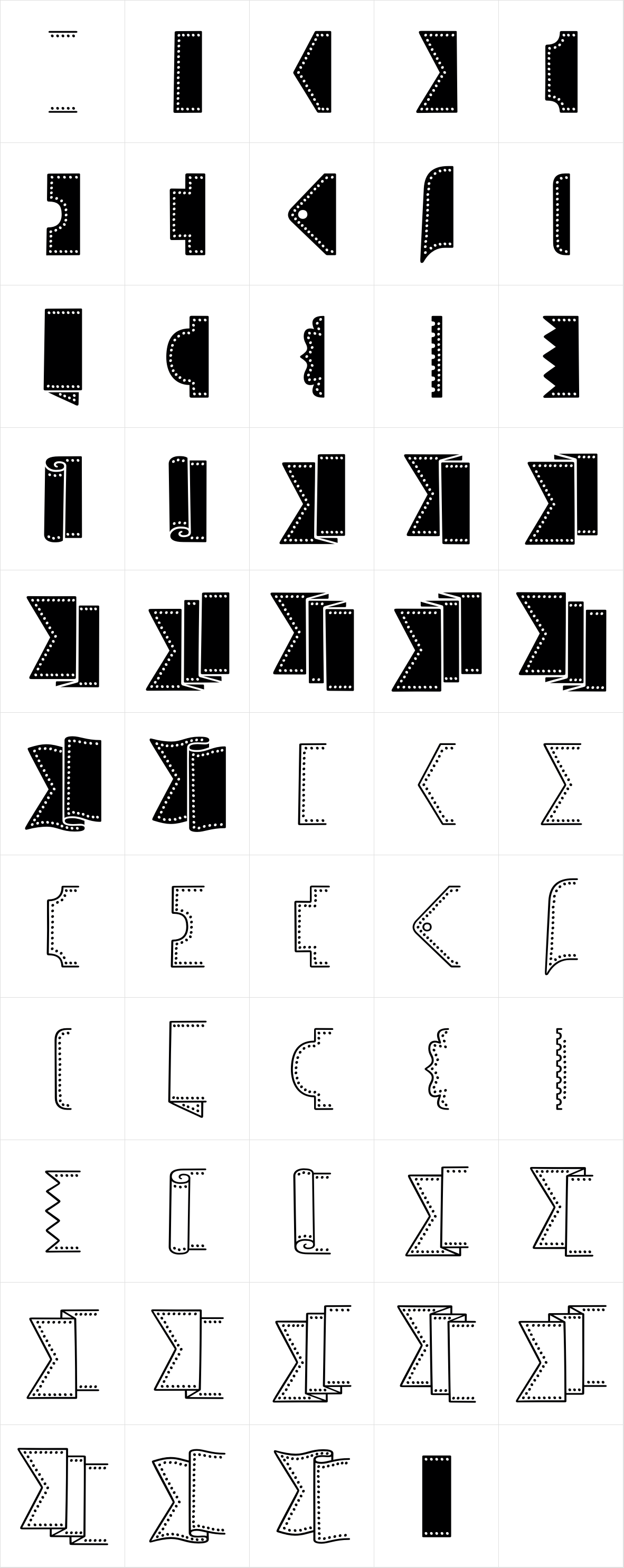
Jabana Extras Banner B Font
- Jabana Extras is a set of awesome specials to get a fast and easy design. It is developed for the font families Jabana and Jabana Alt, but also works with other fonts very well. Banners / Arrows / Ornaments / Catchy Words / Lines / Dividers / Web and App Icons and lots of Coffee Bar Icons … You’ll get crazy about it, because the Extras are combinable and flexibel in width. Just switch on the ligature feature (OpenType) and type from “a” to “z” or “A” to “Z”. Try it, learn it, love it! Banner: Combine for example “h” and “m”. Continue to type, it will get wider! Switch to uppercase it will get black! Type another letter, e.g. “g”, it changes … You will have 1000 of different Banners, or 2000 of varying Ornaments. The “Web and App Icons” are placed on the standard unicode encoding. The “Coffee Bar Icons” are placed on the private use area of the unicode list. Please download the specimen to get to know, how the Extras and Opentype-Features work.